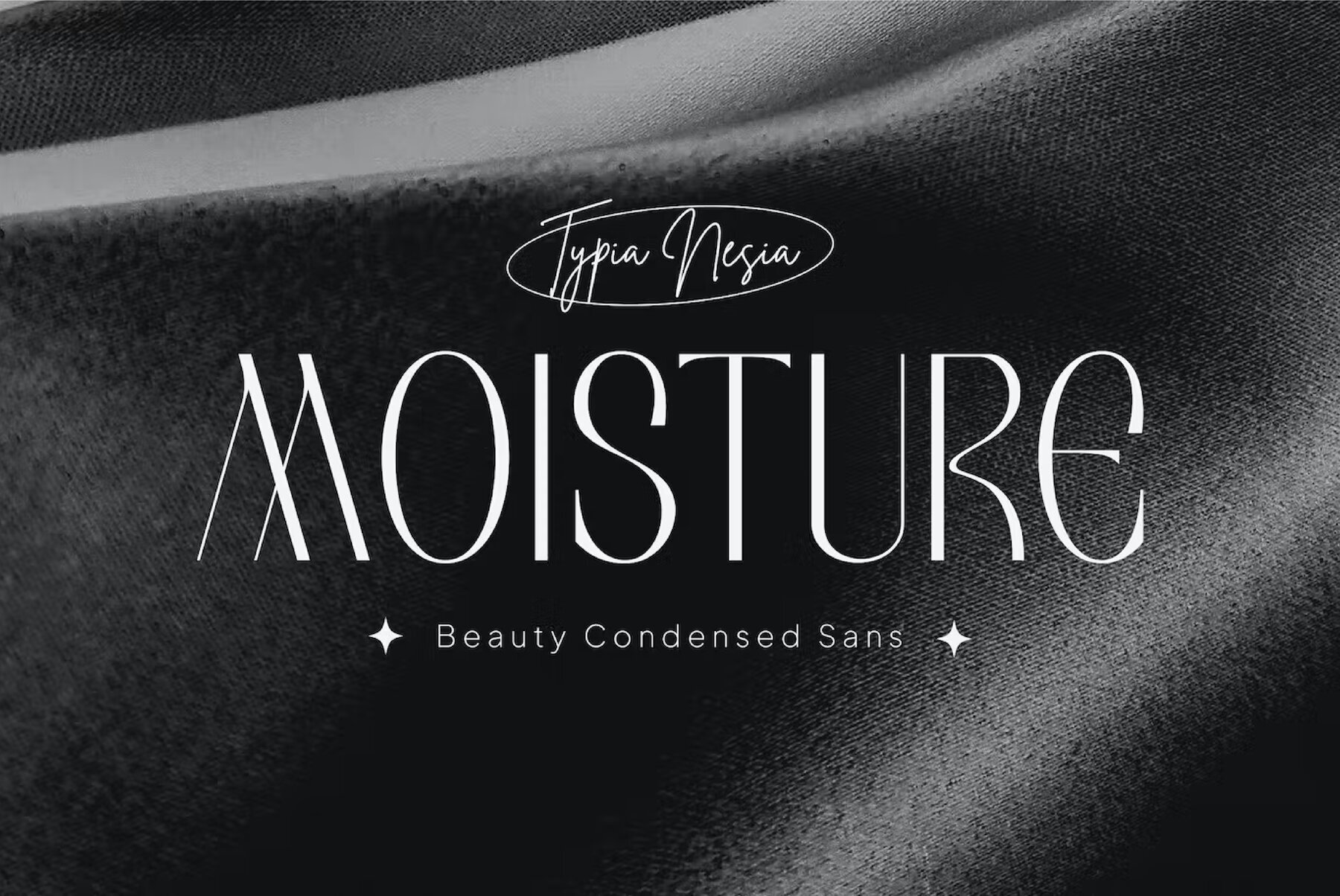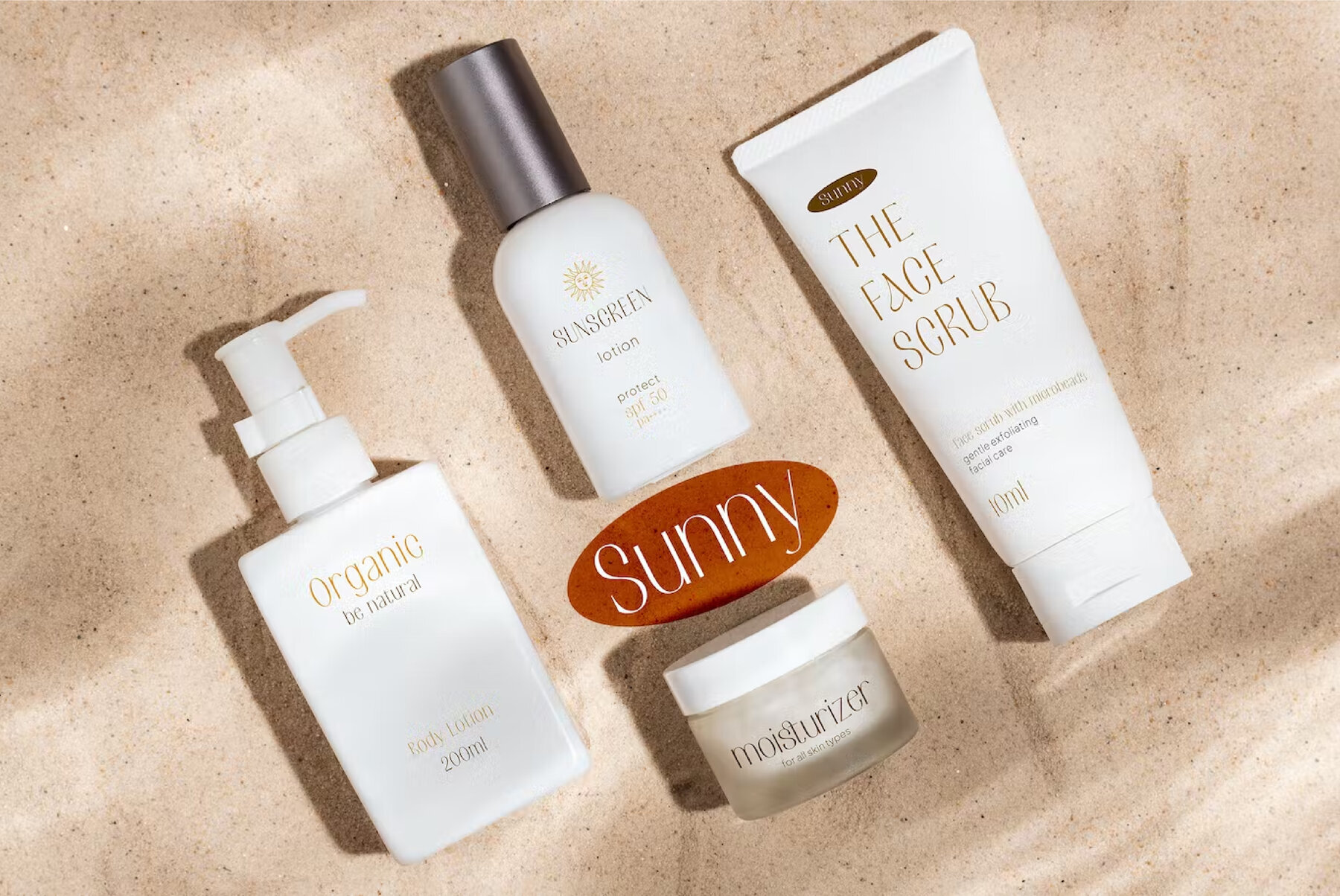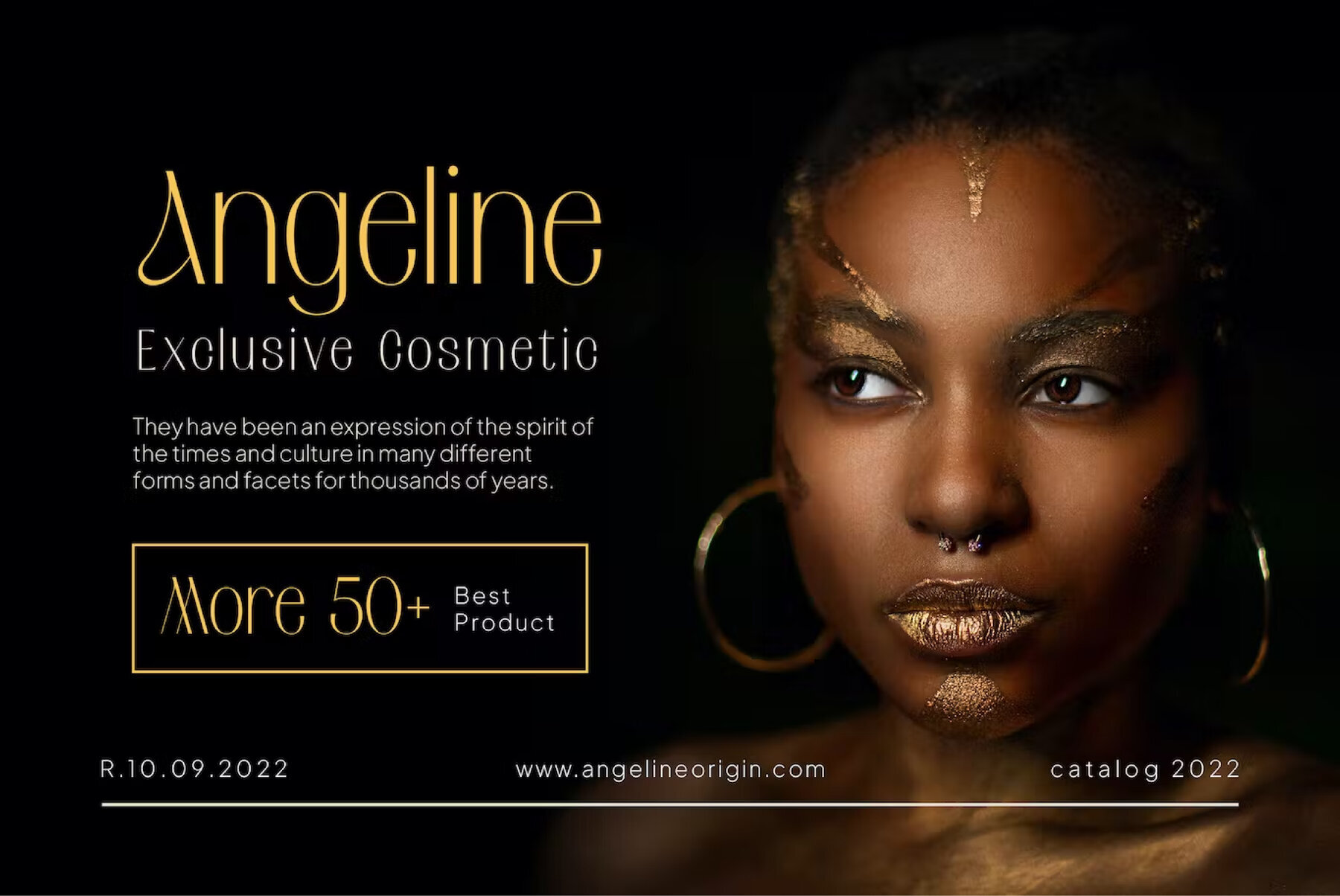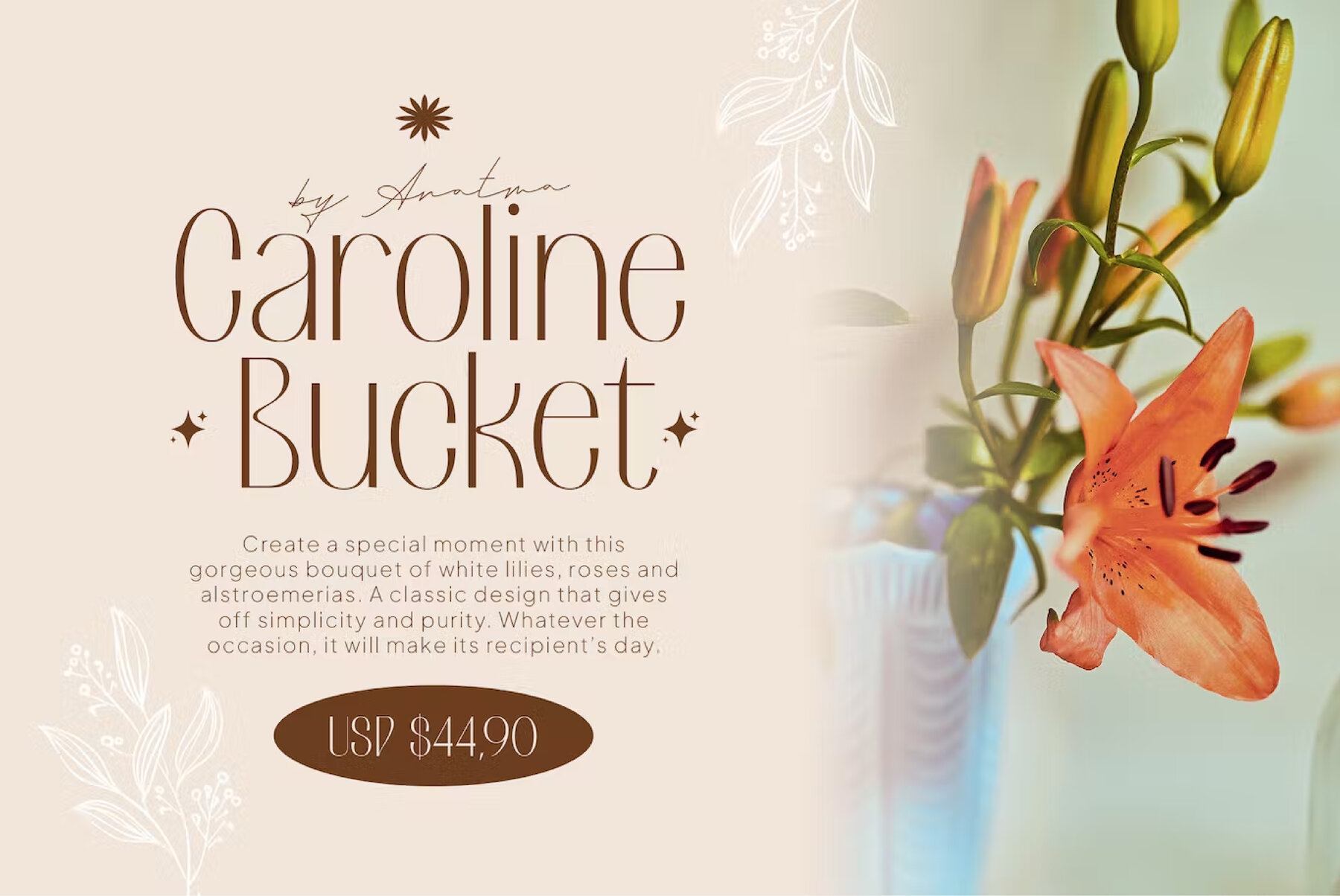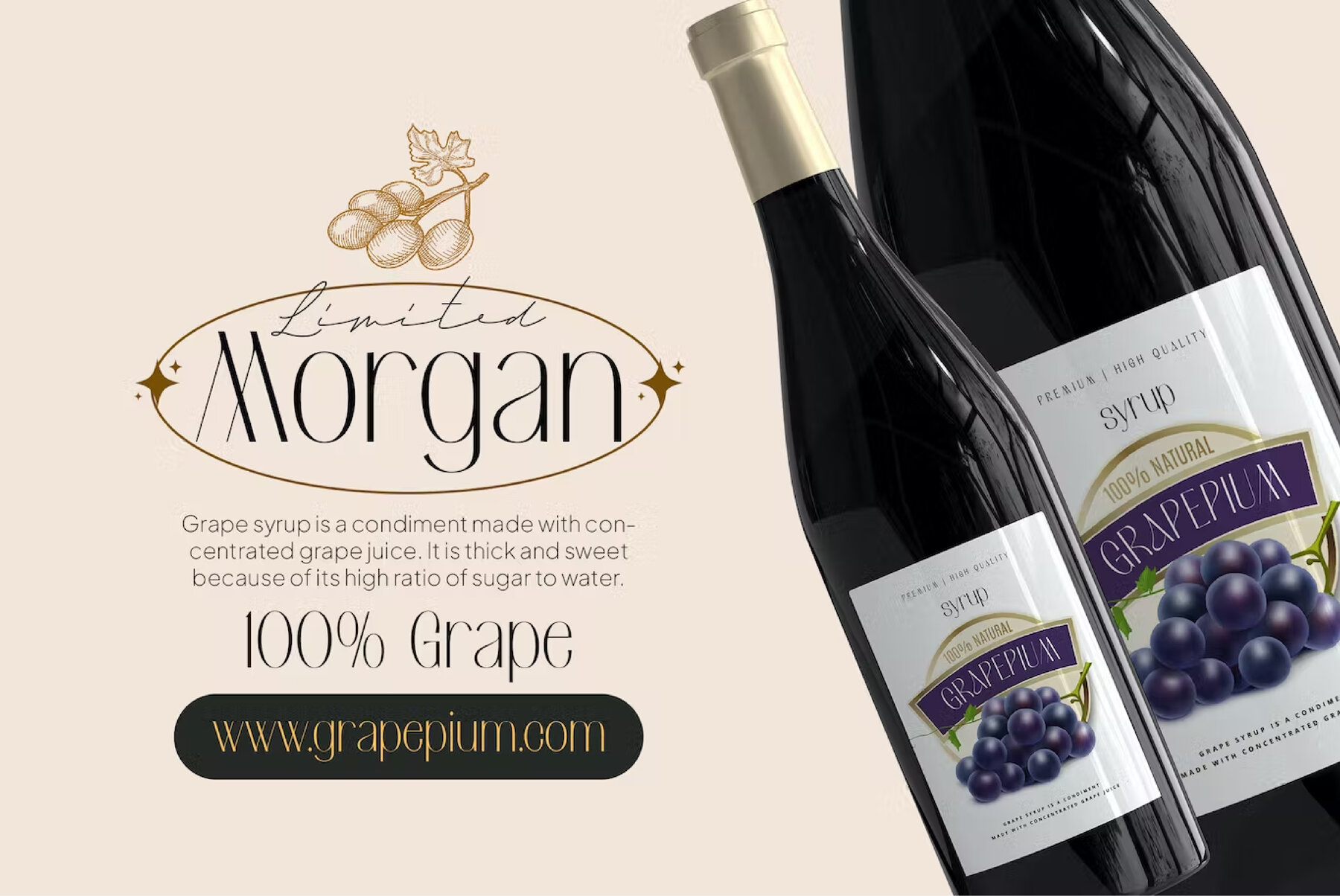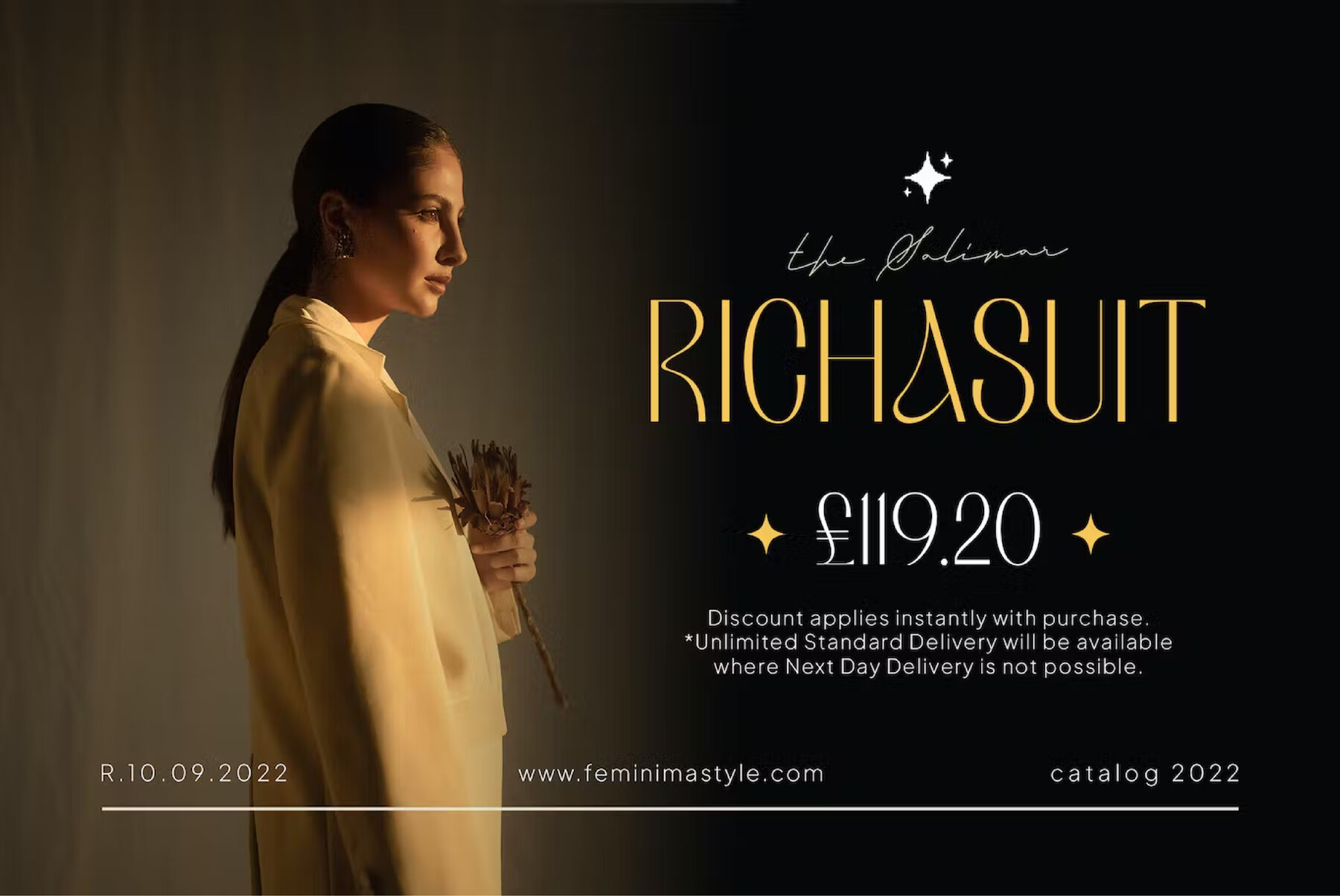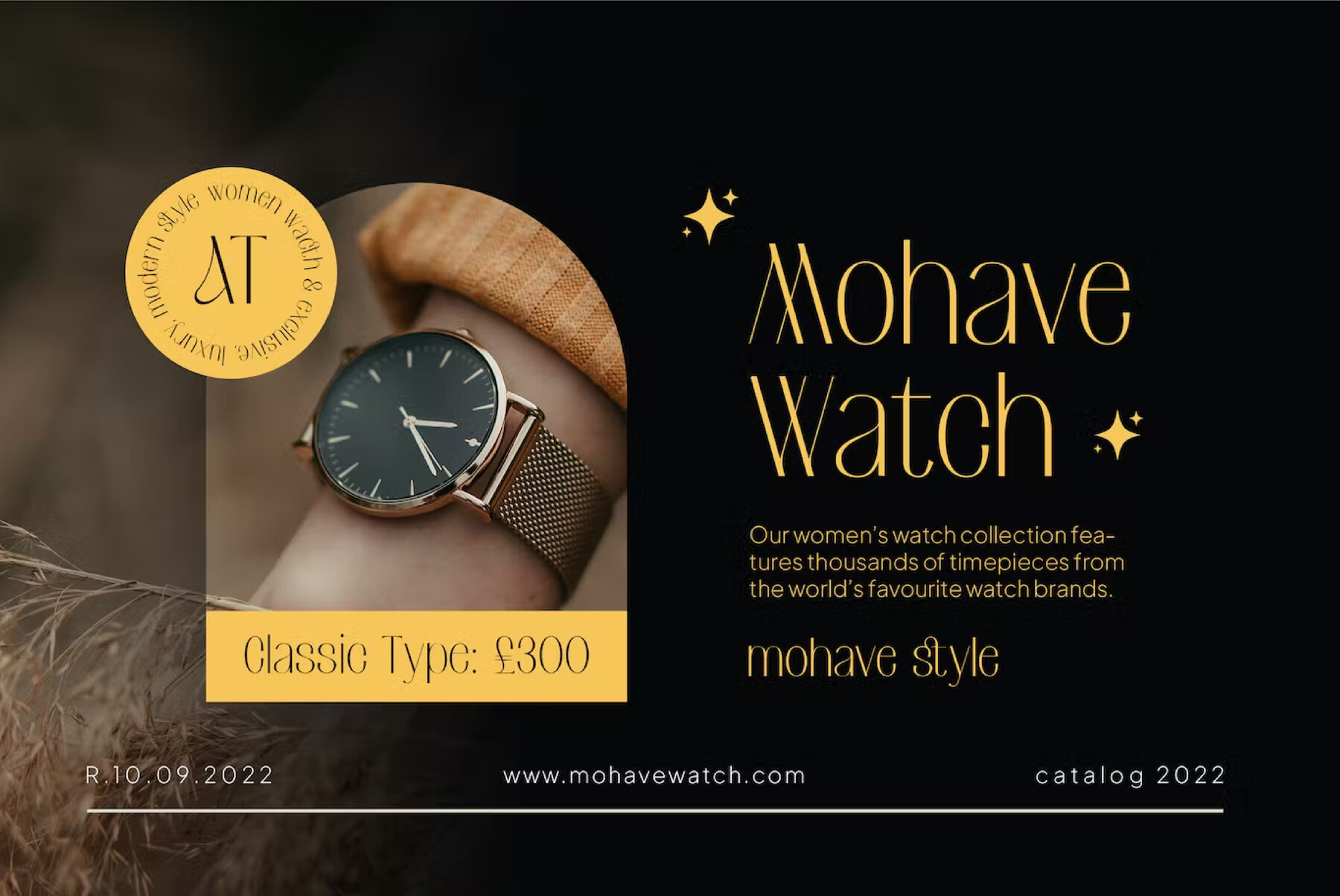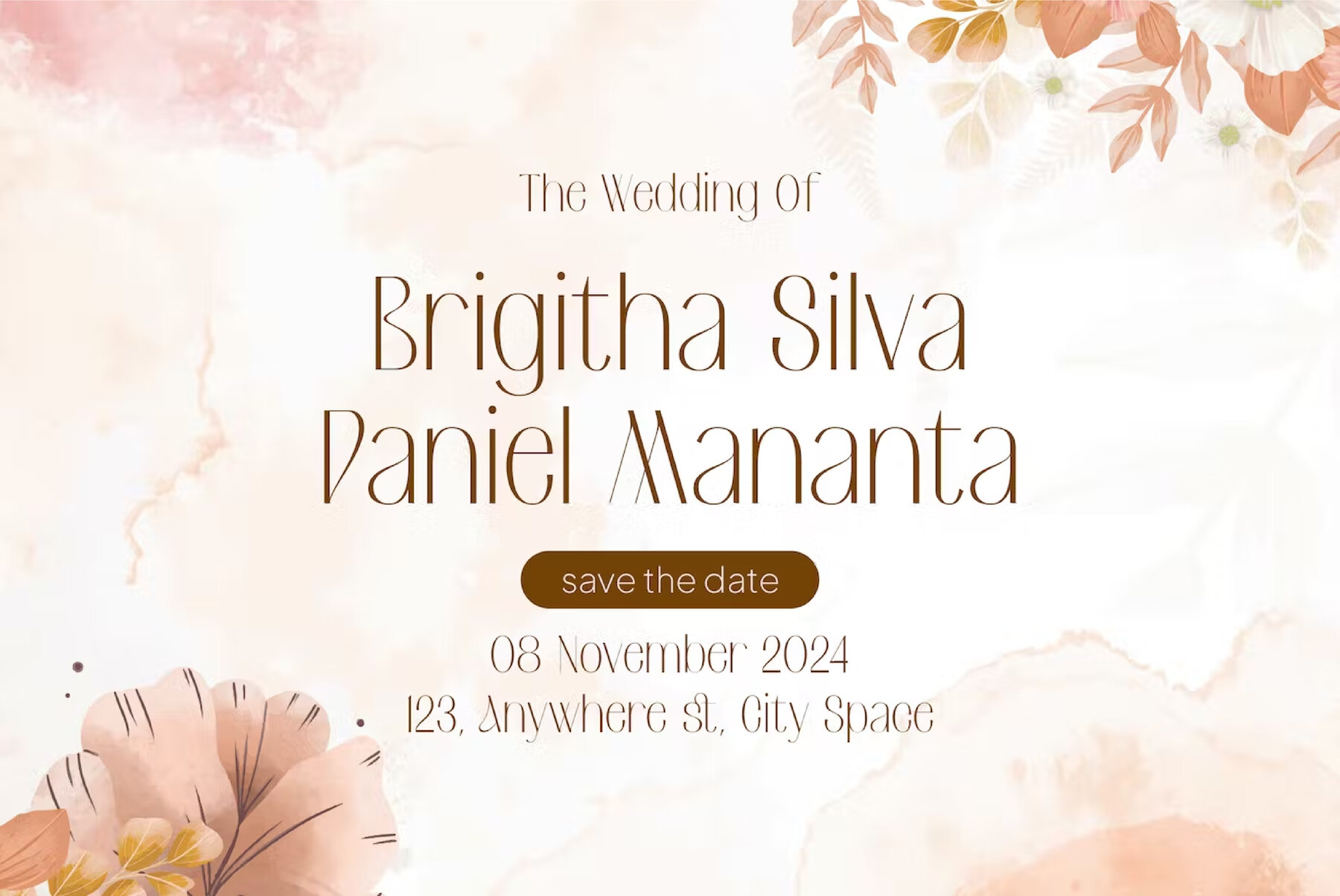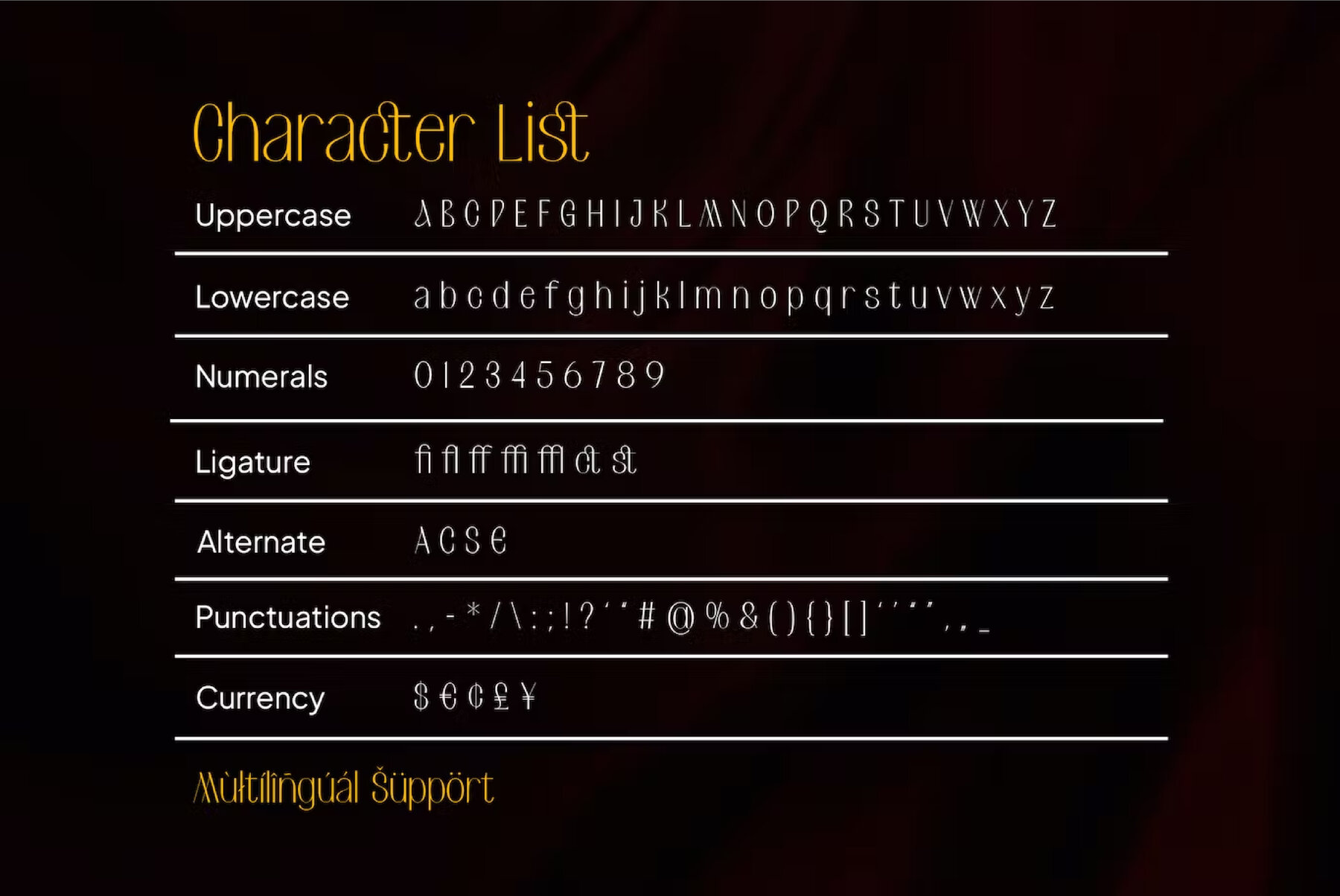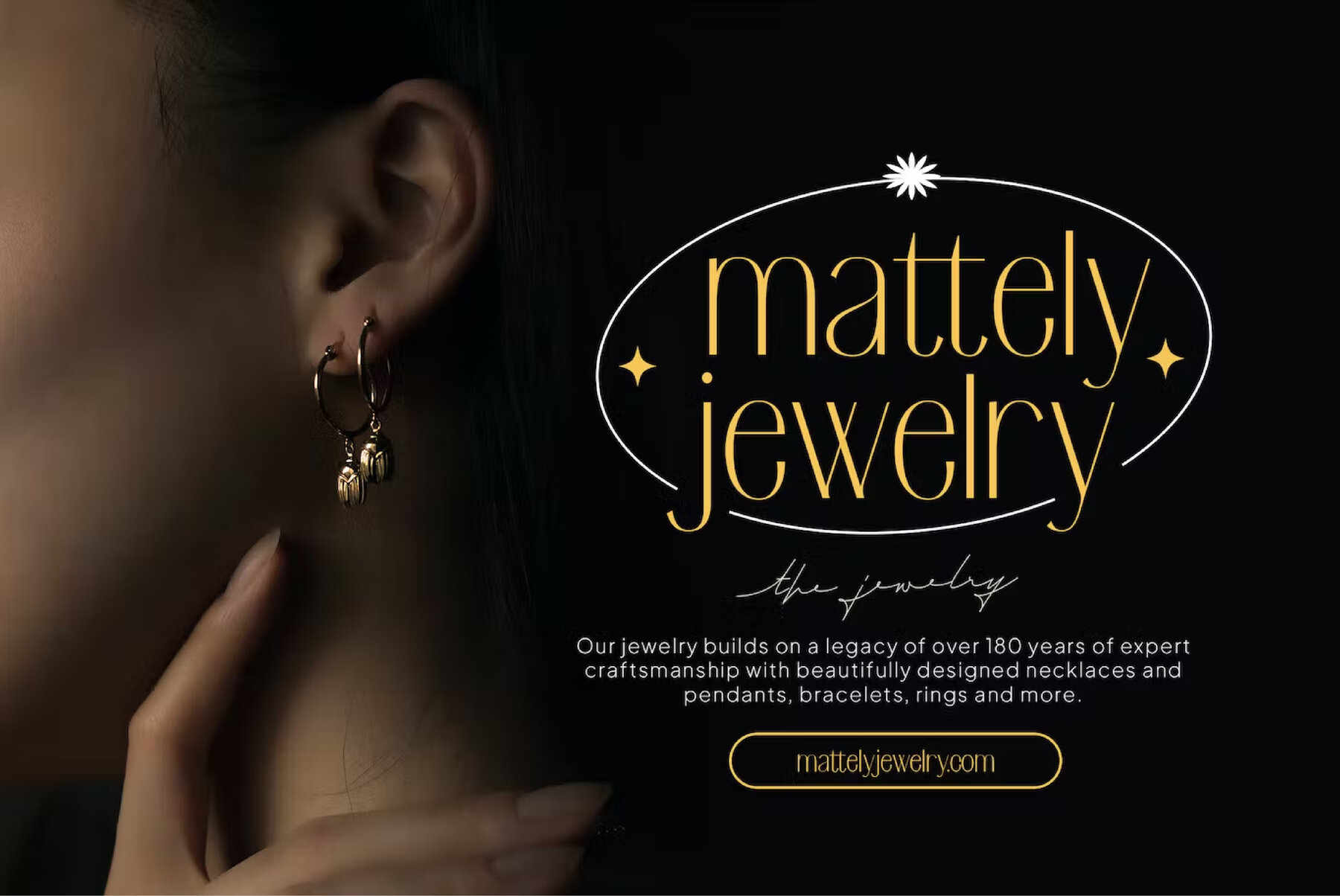
Moisture Font
Moisture Regular
Make a statement with Moisture Sans! Ideal for luxury logo and branding, editorial design, modern advertising campaigns, stationery design, book covers and more, this font offers sophisticated sophistication with a hint of elegance. Whether you're creating a magazine for women or designing an event invitation, Moisture Sans will bring your designs to life. With its classic curves and subtle detailing, this font is sure to make any project shine.